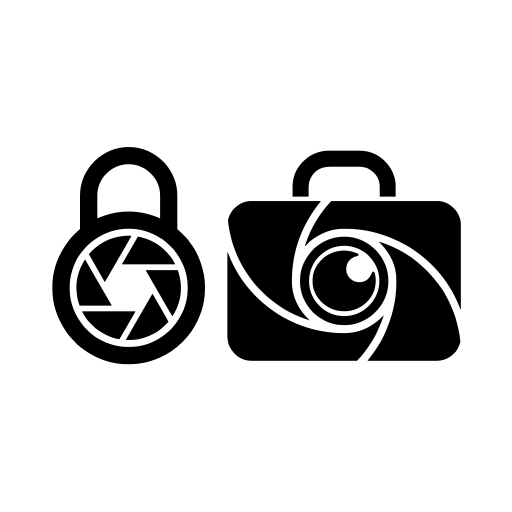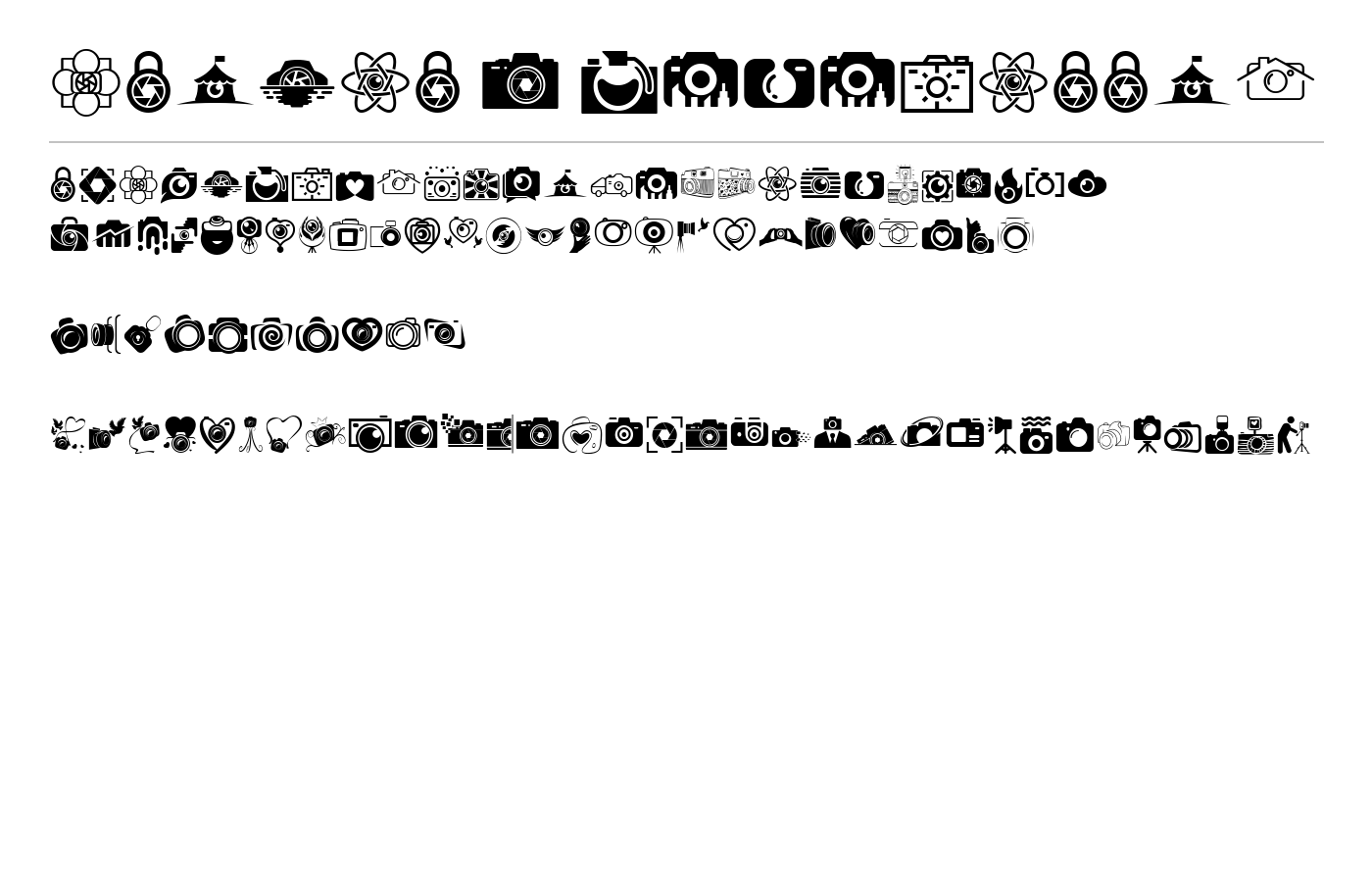
CAMERA - FOTOGRAAMI is a creative symbol font filled with various camera and photography-related icons, perfect for adding a visual punch to photography projects. Its solid, bold shapes and diverse motifs make it ideal for logos, branding, or editorial design where photographic imagery or themes need to be clearly and stylishly represented. This font brings a playful yet professional vibe to any creative work centered on cameras and photography.
CAMERA - FOTOGRAAMI Font
About CAMERA - FOTOGRAAMI Font